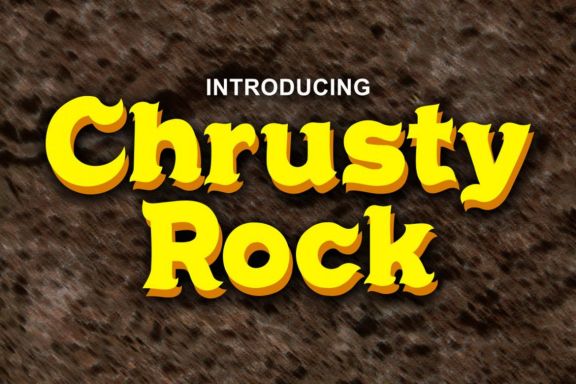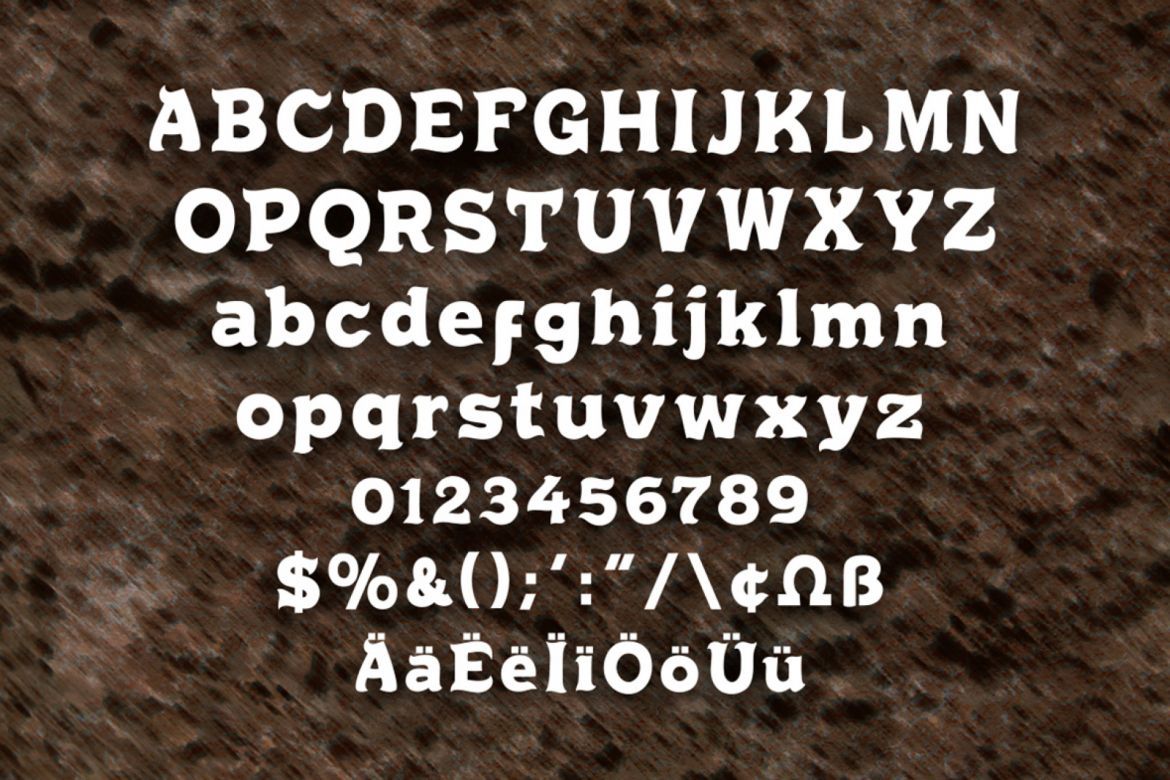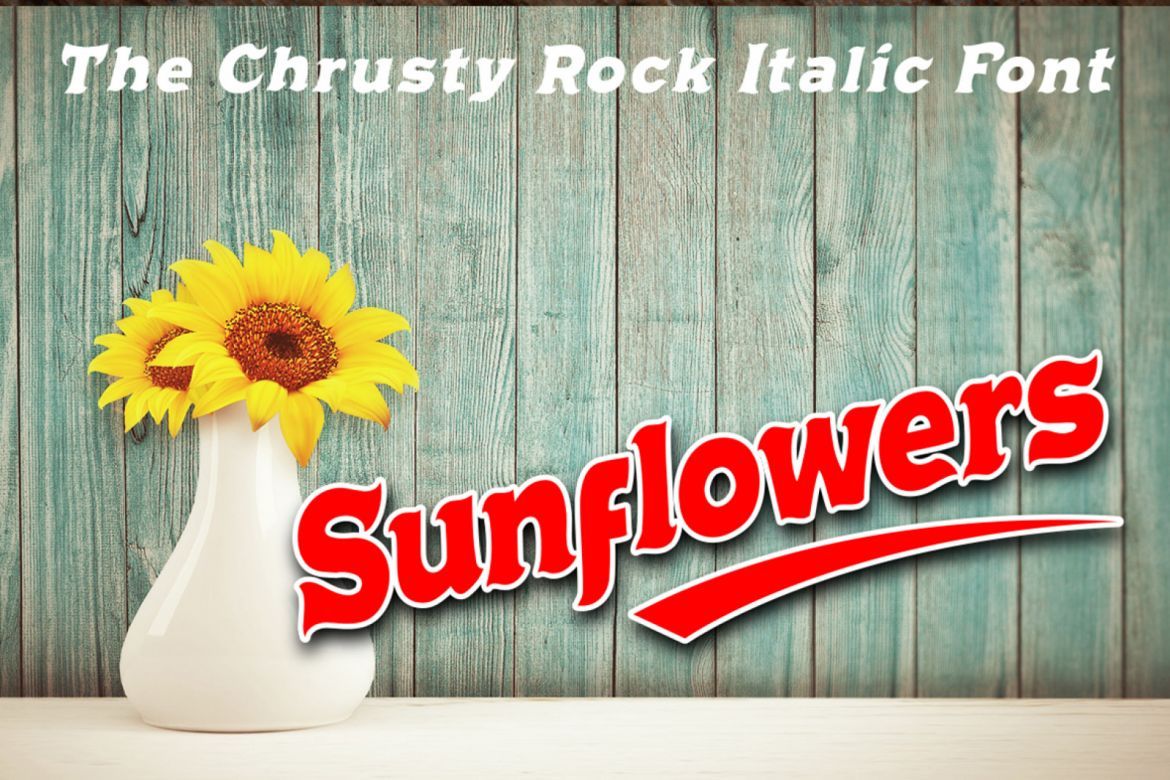
Chrusty Rock Display Font
Chrusty Rock font is a handwritten serif font. Get inspired by its exciting outdoors feel! Include ttf and otf files. Regular and italic style
• handwriting style